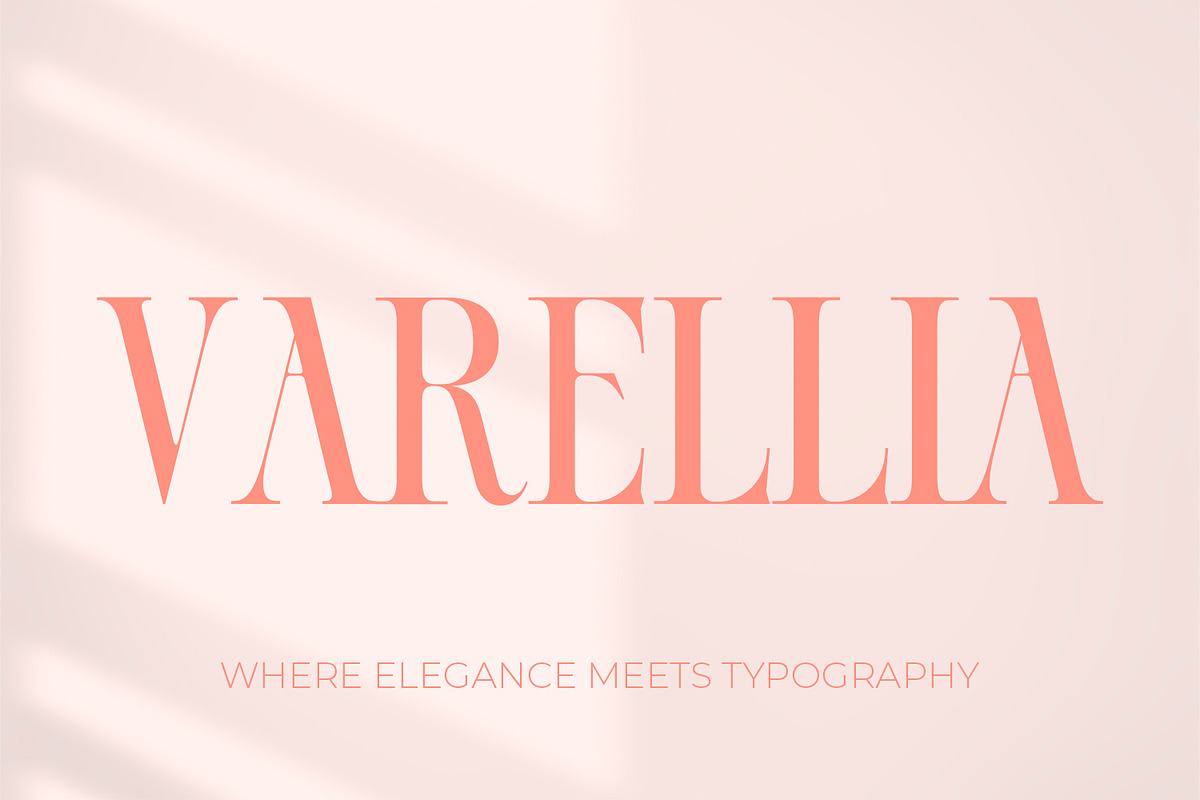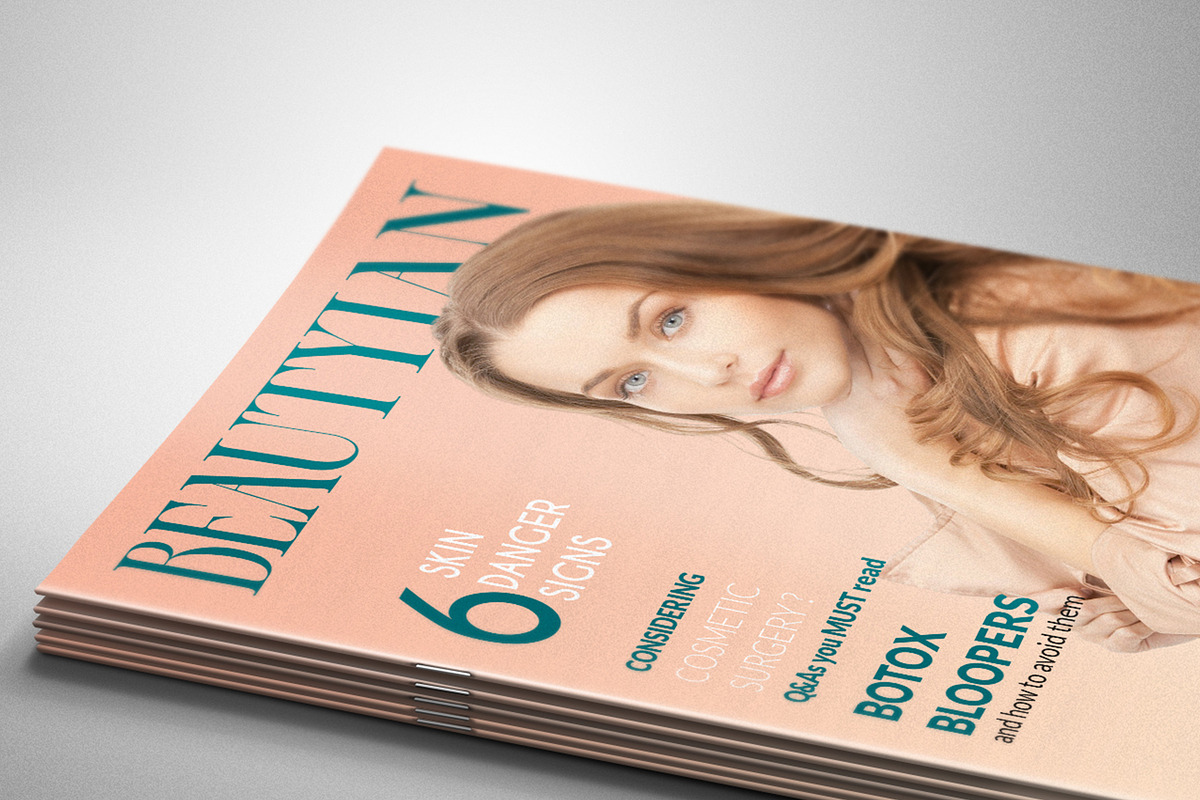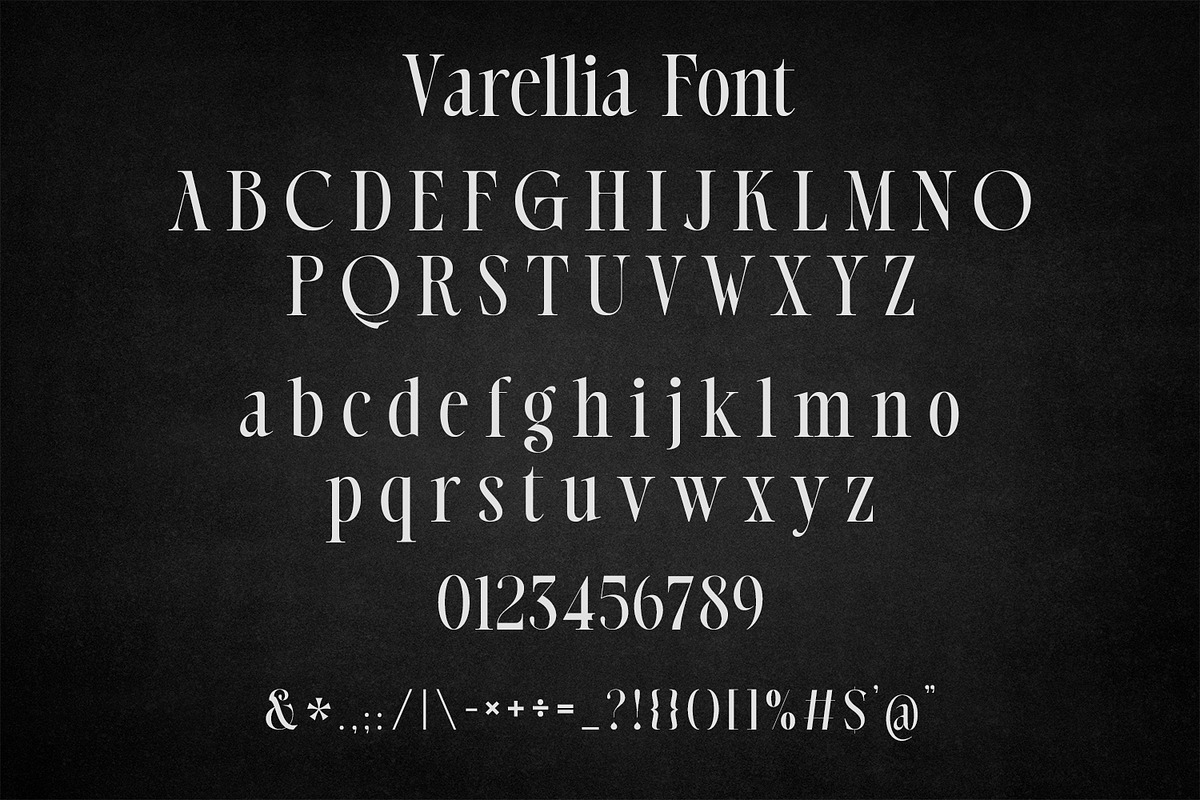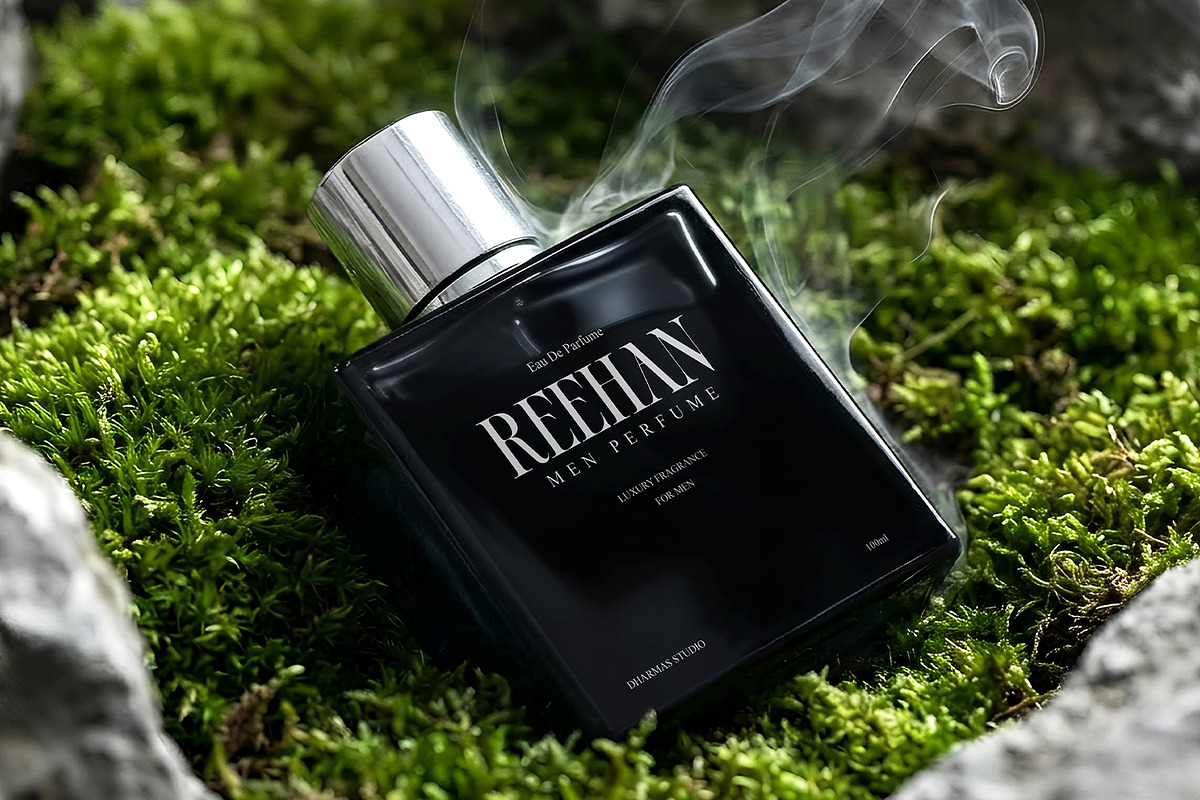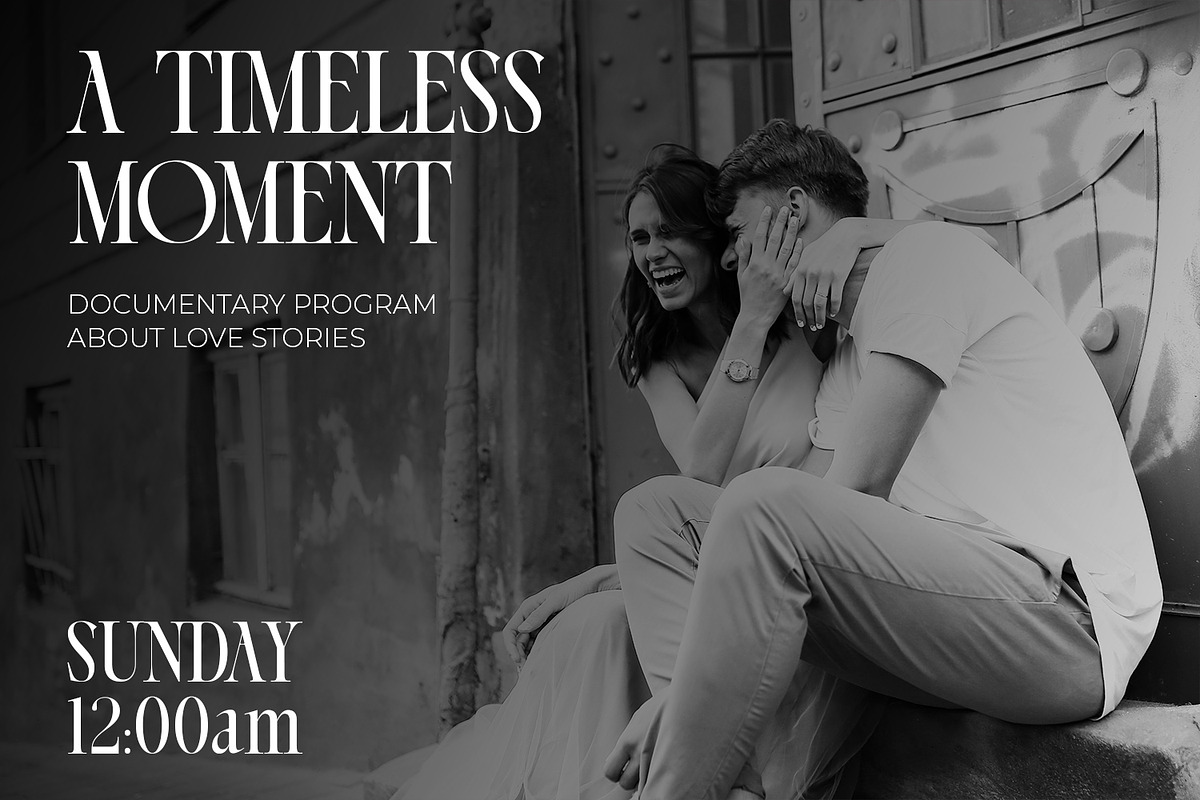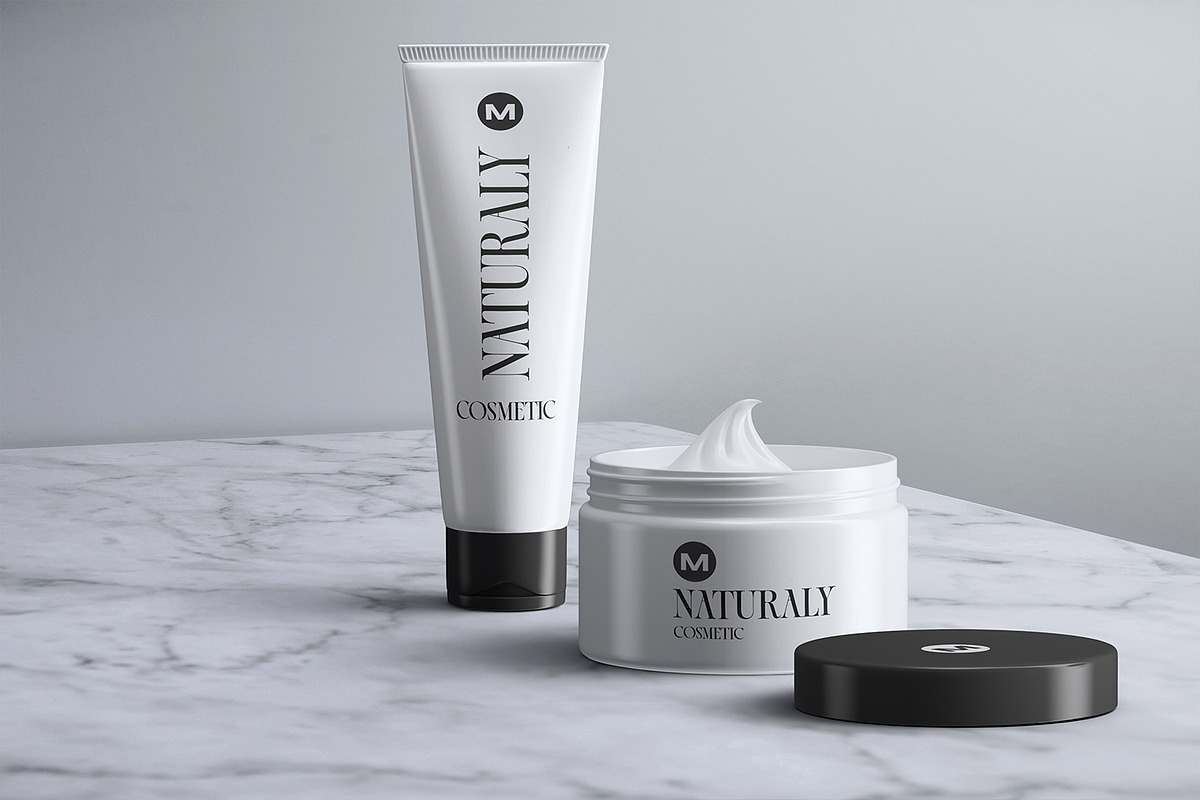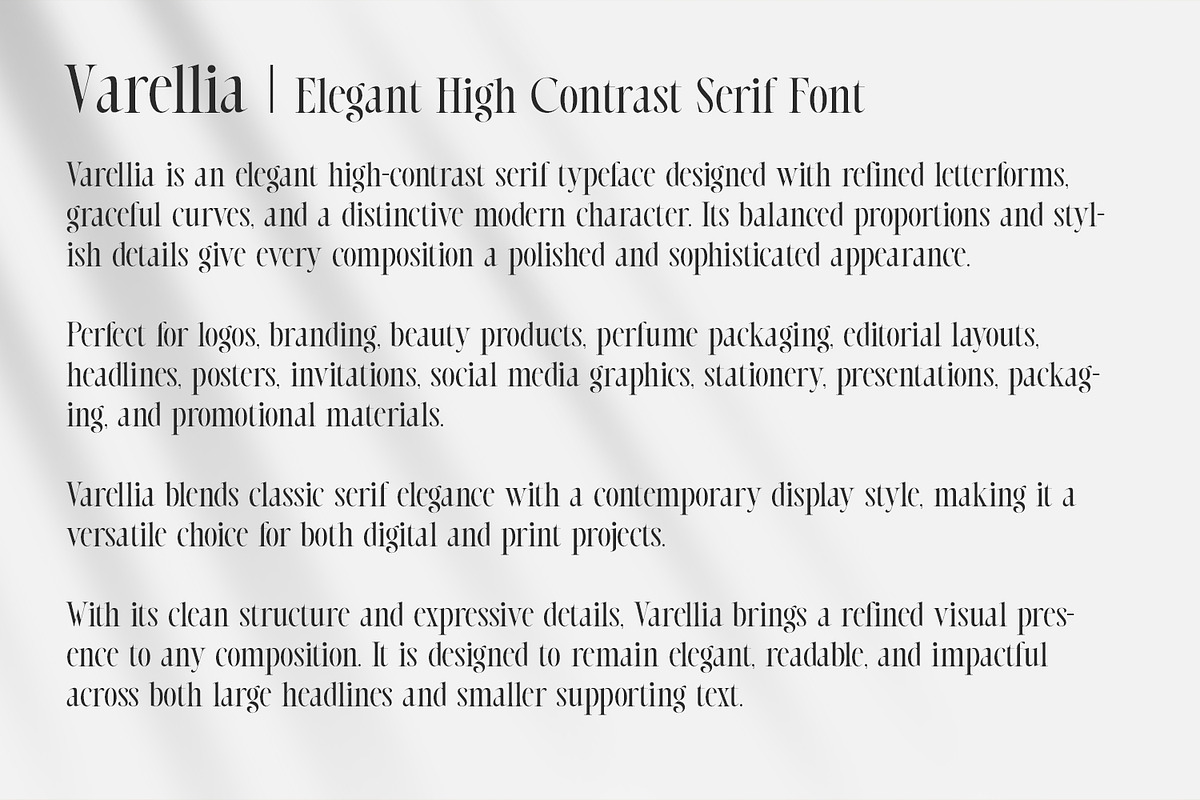
Varellia – Luxury Modern Display
Varellia is an elegant high-contrast serif font featuring refined letterforms, graceful curves, and a sophisticated modern personality. Its distinctive shapes and dramatic contrast create a polished typographic appearance that works beautifully across both classic and contemporary designs.
Perfect for logos, branding, editorial layouts, beauty products, perfume packaging, magazines, headlines, posters, invitations, wedding stationery, packaging, social media, advertising, presentations, and premium visual identities.
Varellia combines timeless serif characteristics with a modern display aesthetic, making it ideal for designers looking for expressive and memorable typography. Its elegant uppercase and lowercase characters provide a strong visual presence for both digital and printed creative projects.